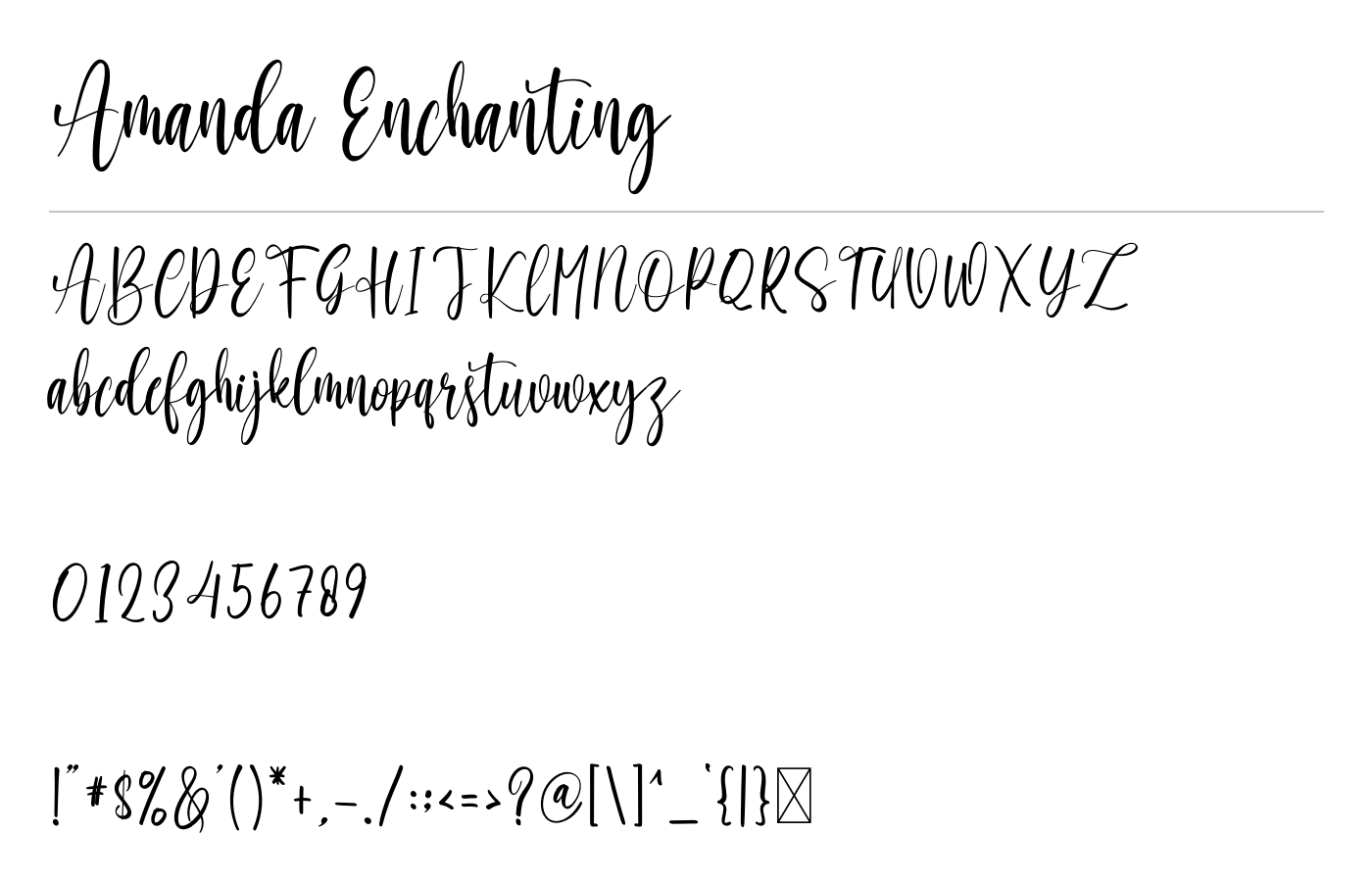
Amanda Enchanting is a playful and elegant script font characterized by its fluid, hand-drawn style with tall, slender letterforms and subtle stroke contrast. Its whimsical curves and natural flow make it perfect for adding a charming, personalized touch to invitations, branding, and creative projects that want to convey warmth and sophistication. This font works especially well in headlines or decorative text where a light, graceful personality is desired.
Amanda Enchanting Font
About Amanda Enchanting Font